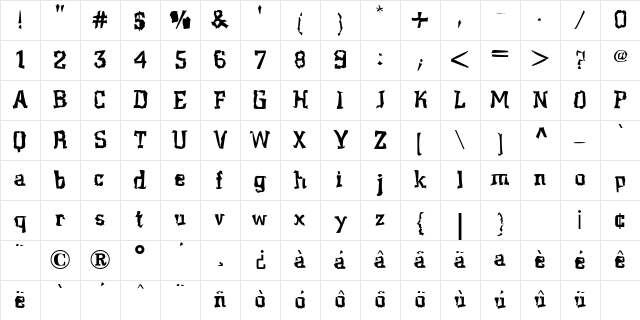
Zooloo Regular Free Font
Zooloo Regular
Design Context for Zooloo
Zooloo is a composed and adaptable typeface that performs quietly and consistently across a wide range of design contexts.